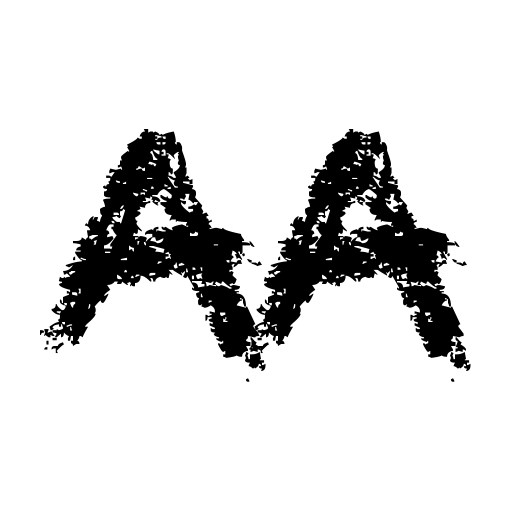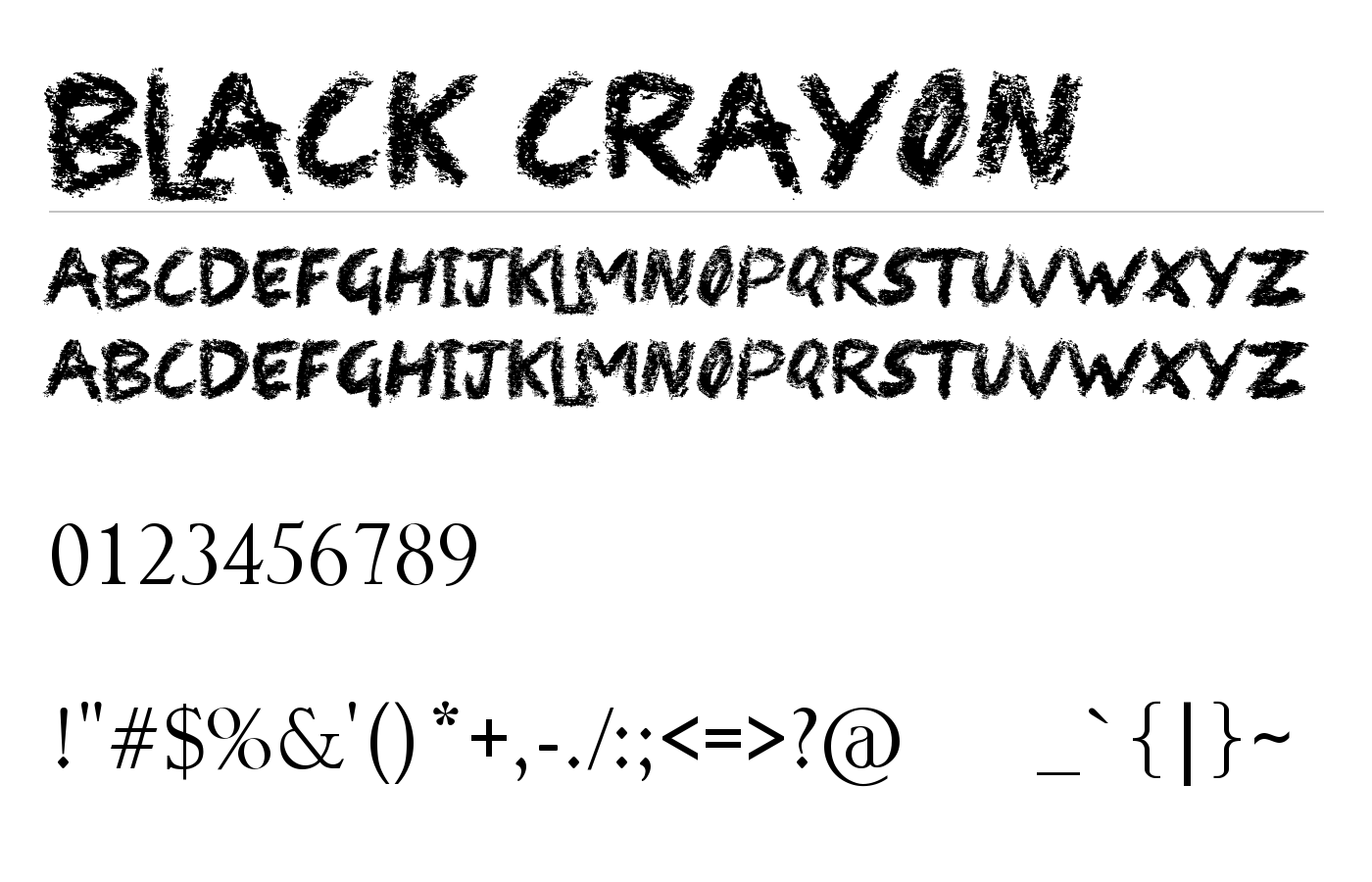
Black Crayon is a bold, textured sans serif font that mimics the rough, hand-drawn look of crayon strokes. Its irregular edges and casual style give it a playful, artistic personality, making it ideal for creative projects, children's designs, and informal branding where a fun and approachable feel is desired. This font stands out in headlines and display uses, adding an expressive, handcrafted touch that feels lively and unique.
Black Crayon Font